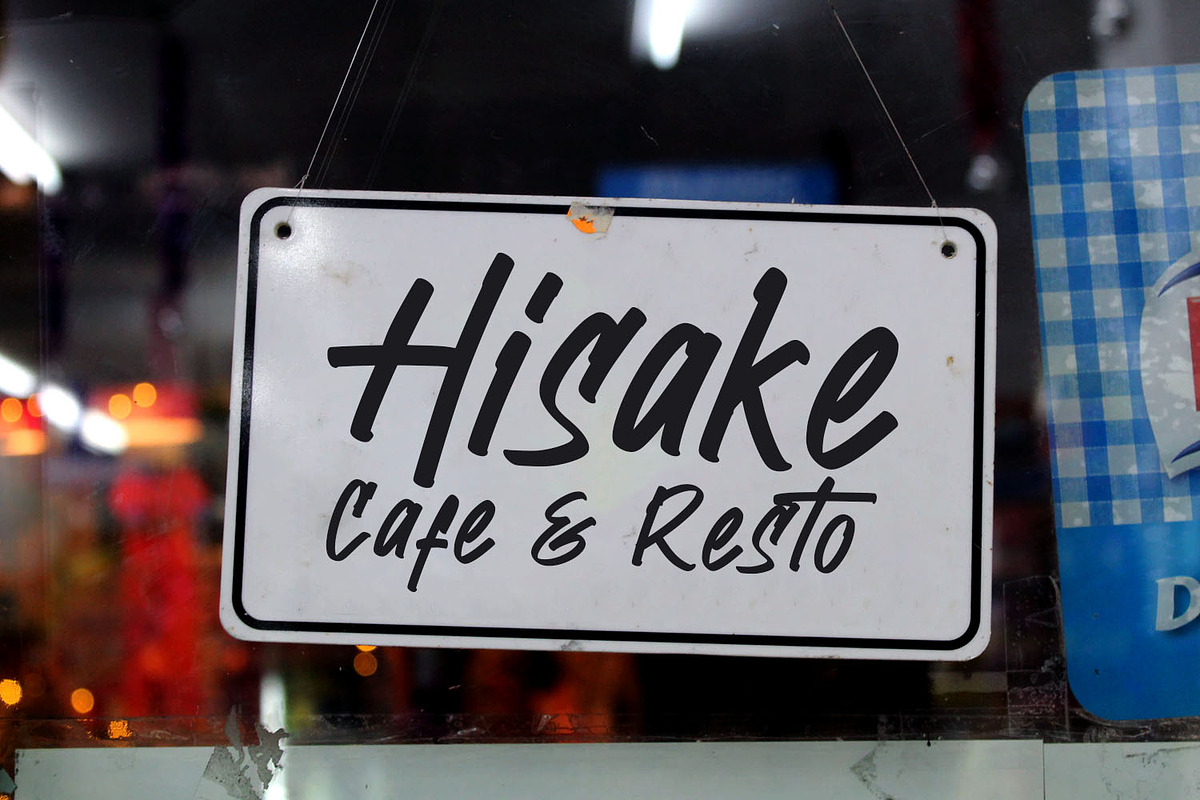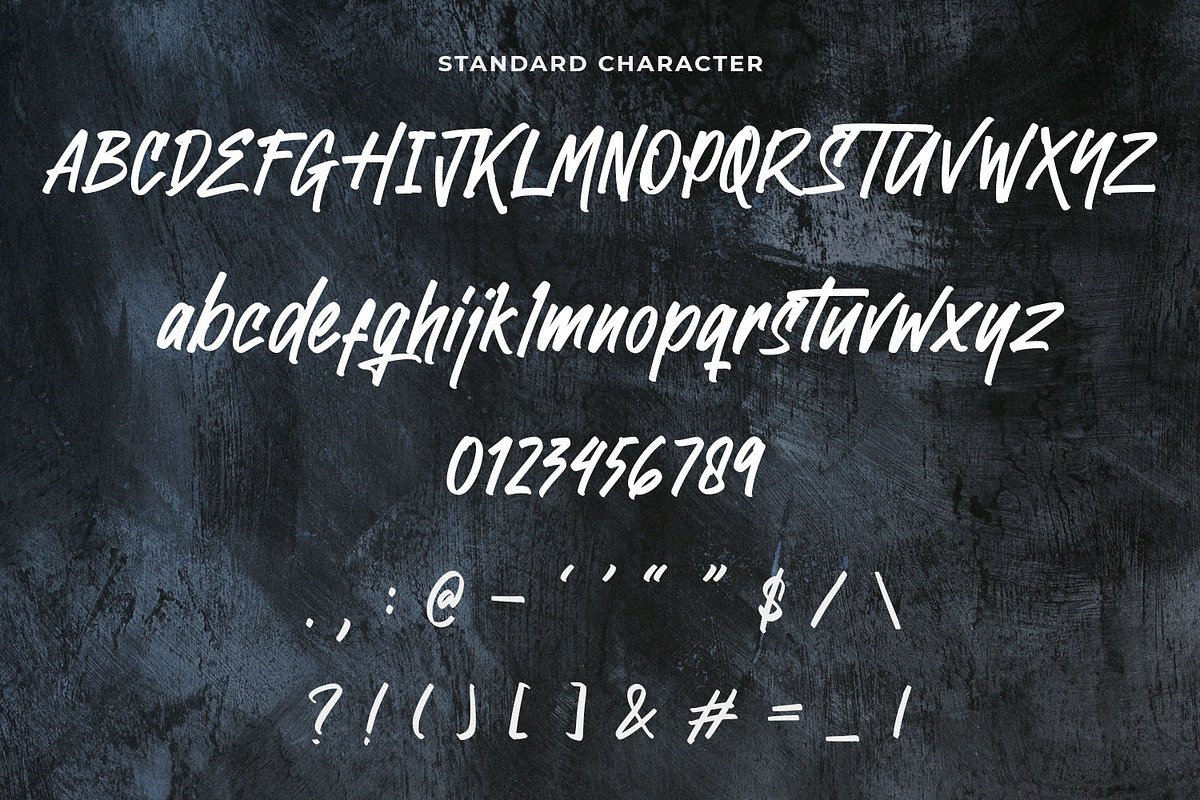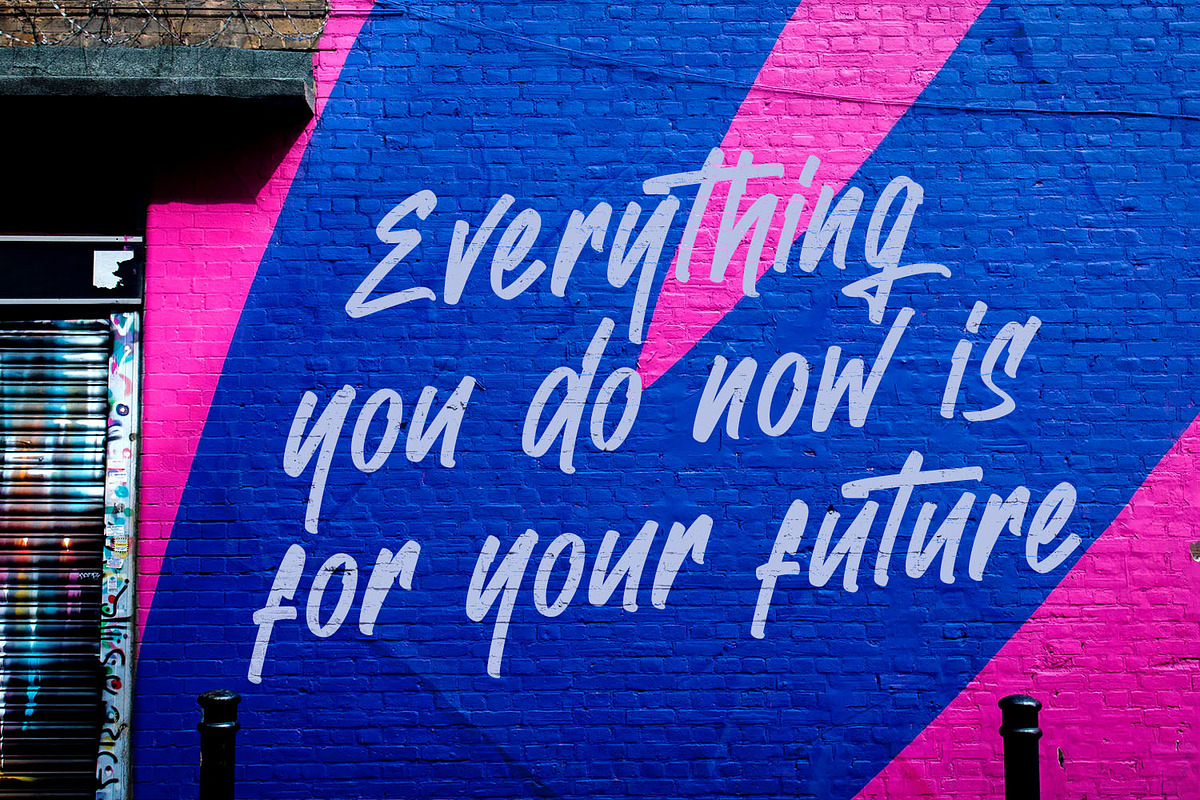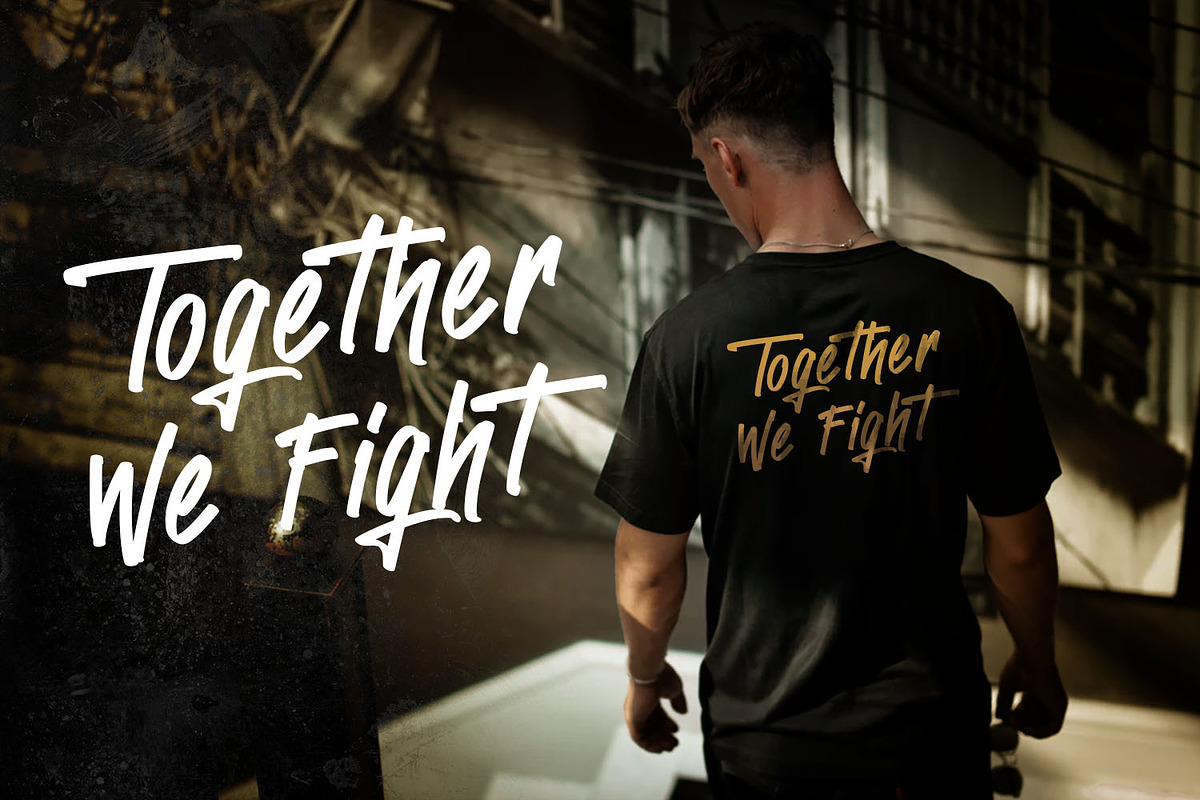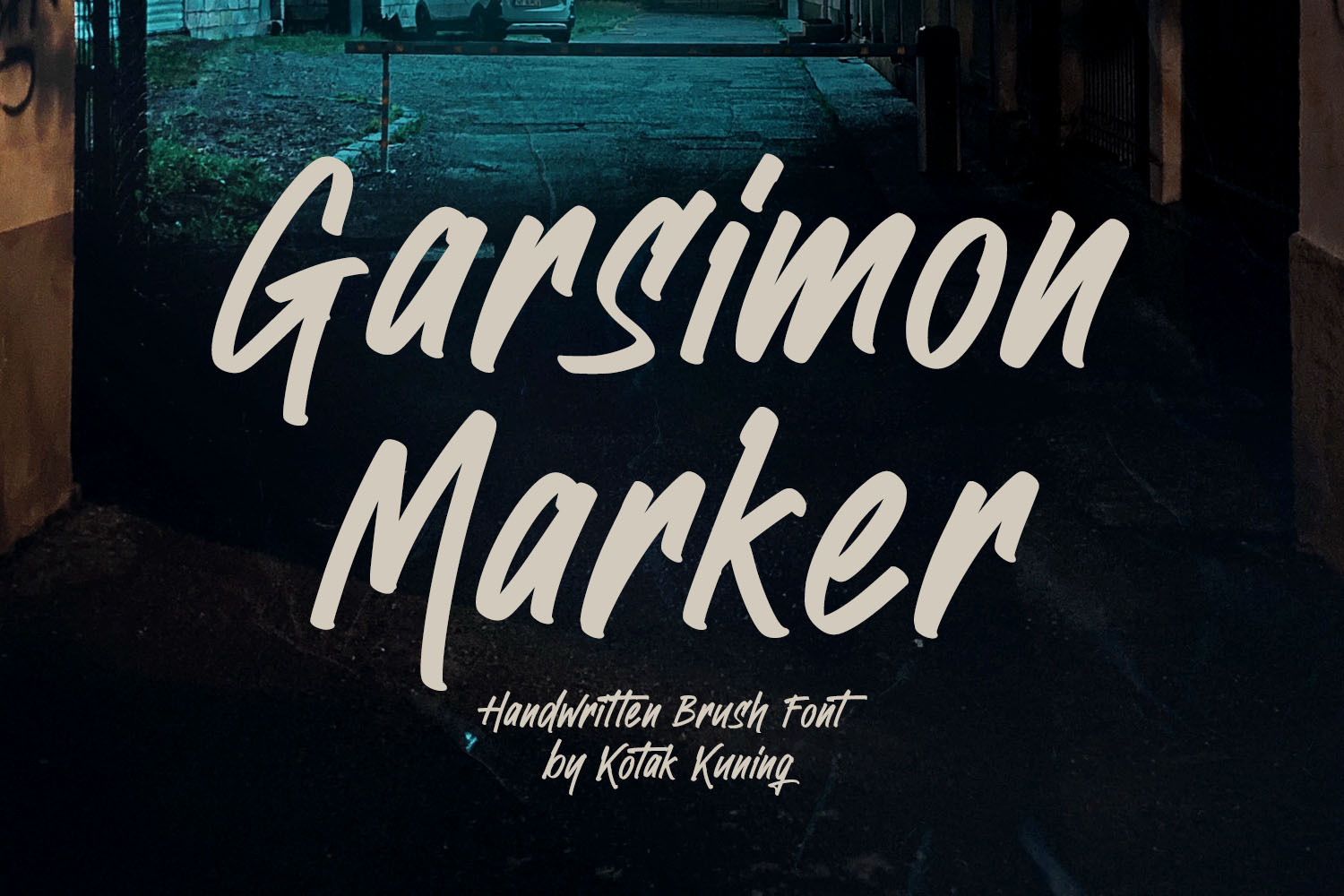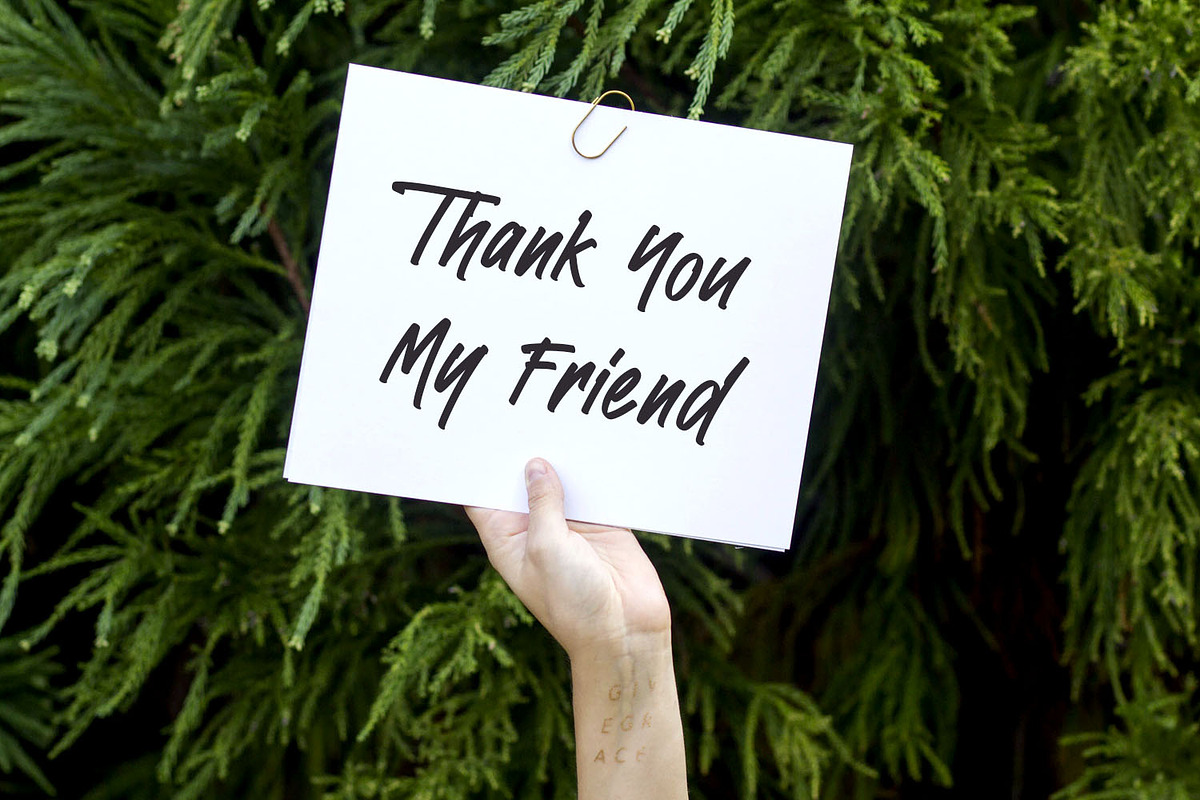
Garsimon Marker - Handwritten Font
Garsimon Marker is a bold and brushed handwritten font. It features an incredibly handwritten style, while still keeping a casual vibe. Garsimon Marker is the perfect font for making original and outstanding designs.